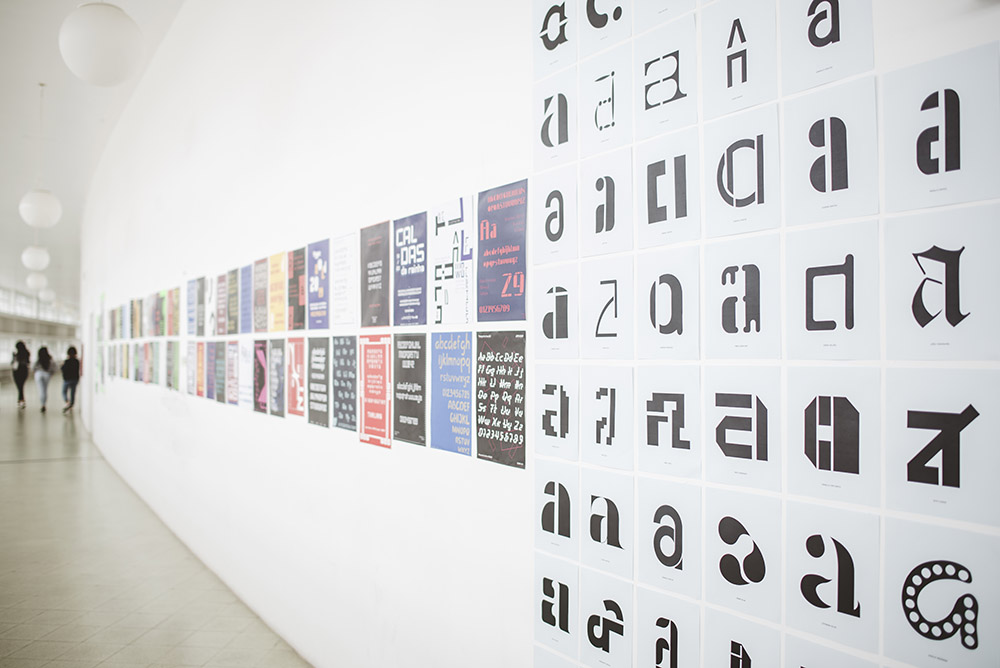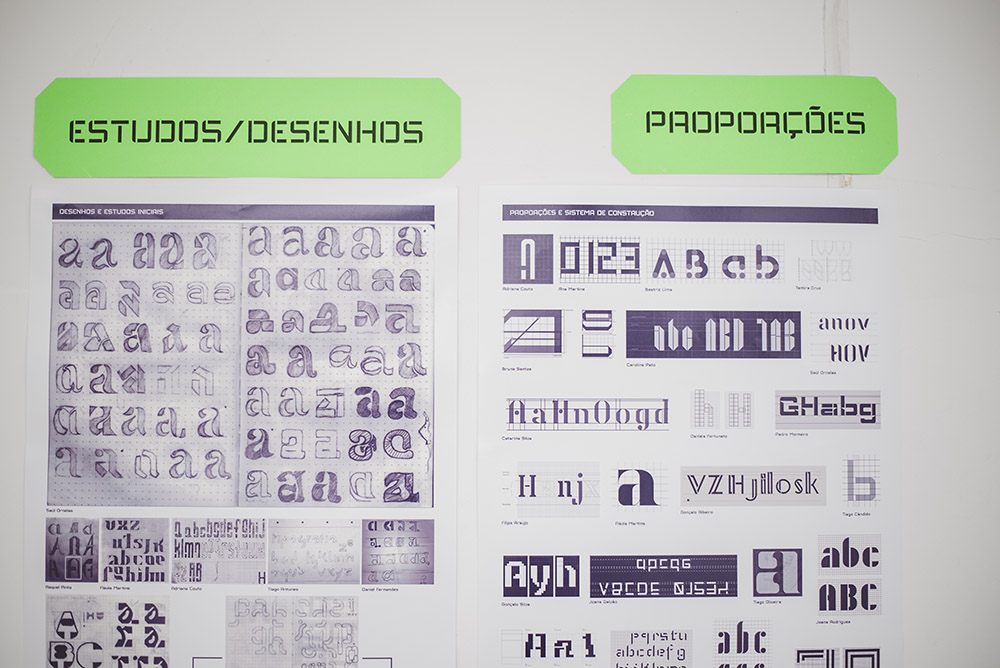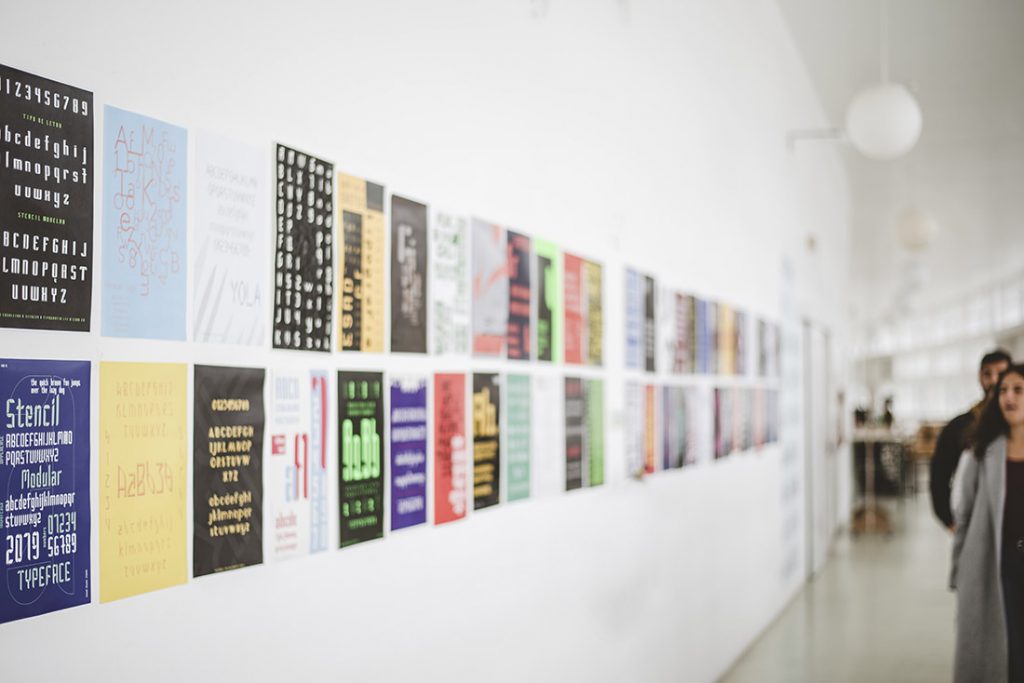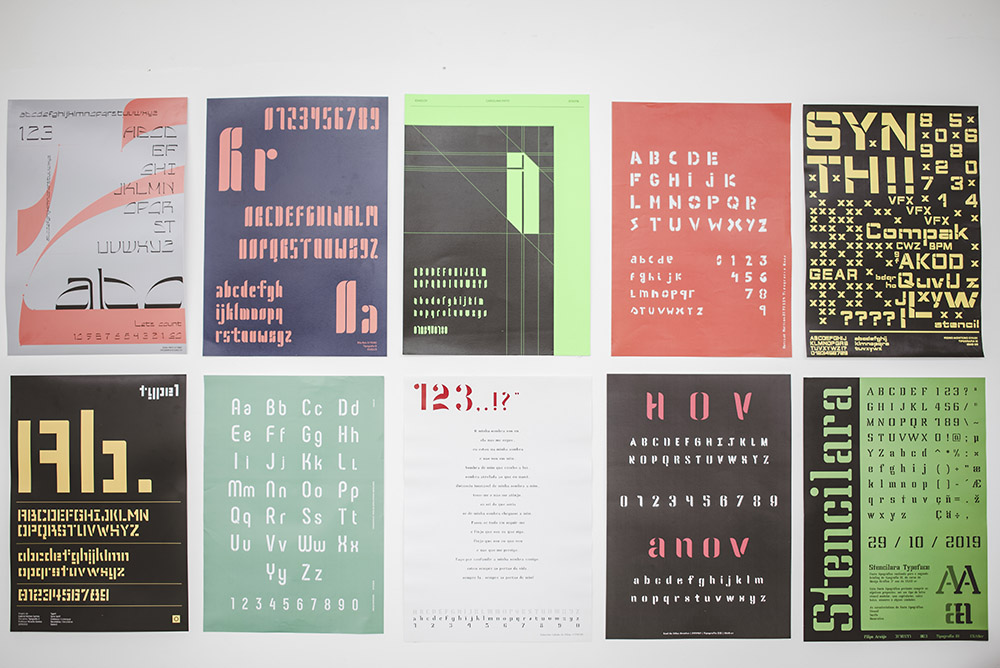
Exhibition Stencil Modular Typefaces
This exhibition brings together the collection from the Typography III (G.D.M) students’ projects on the theme and technique of stencil typefaces. This presentation show features posters, drawings, work processes, posters and graphic applications through mockups related to ESAD.CR or the city of Caldas da Rainha. This project is the result of students’ first experiences in the field on type design as digital format.